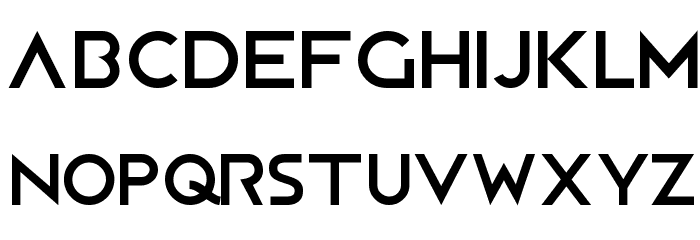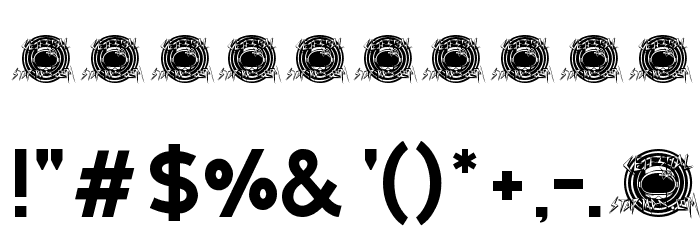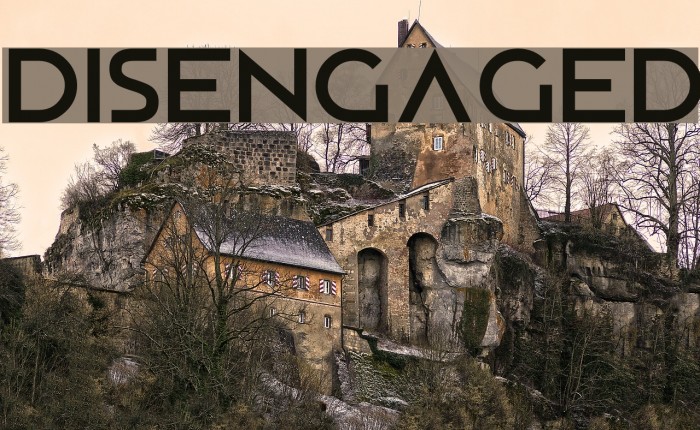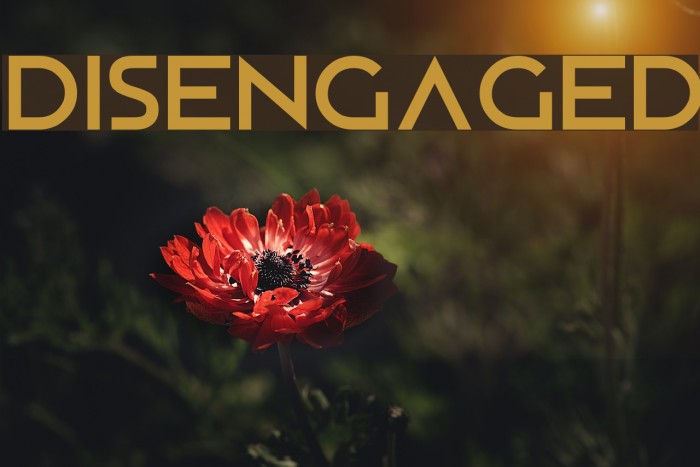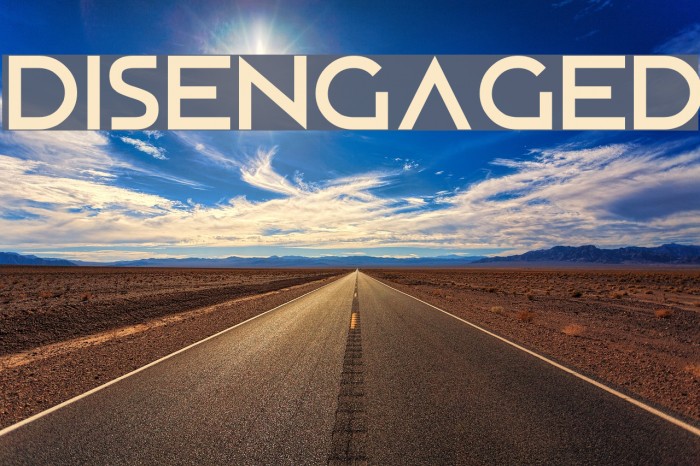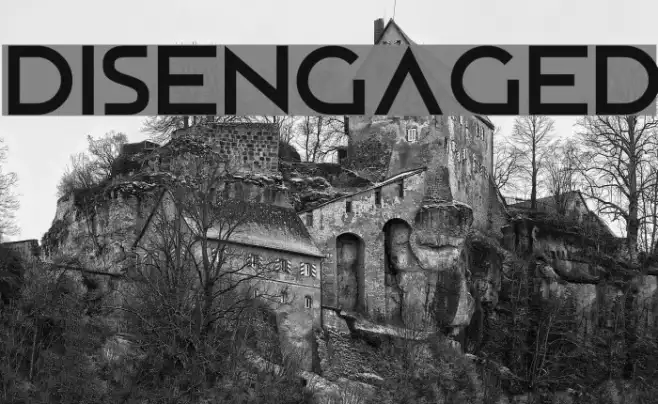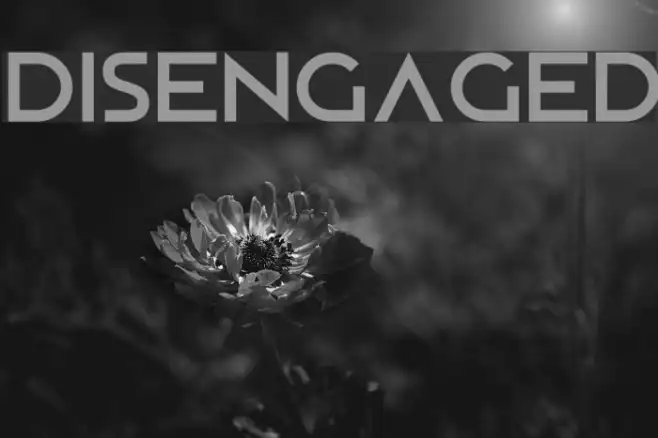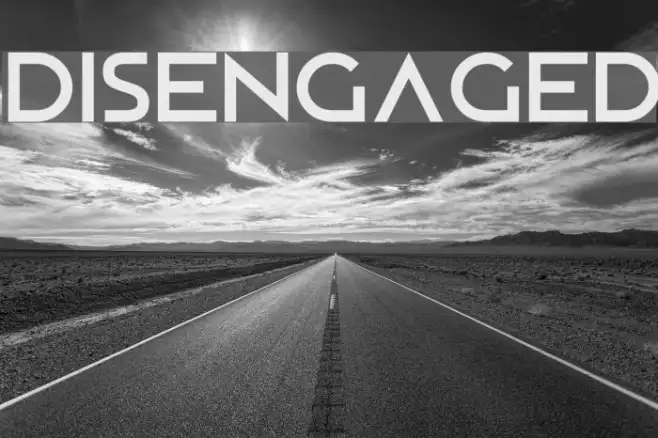
Disengaged Font
This font features a bold and geometric design with a modern aesthetic. The uppercase letters are characterized by sharp angles and clean lines, giving them a futuristic and industrial feel. The lowercase letters maintain this geometric style, ensuring consistency across the typeface. The numerals are straightforward and align well with the overall design. Special characters are included, adding versatility for various uses. The font's boldness and unique style make it suitable for attention-grabbing headlines and logos.
A bold, geometric font with a modern and industrial aesthetic.
- Proposed Projects: Ideal for branding, logos, posters, and any project requiring a modern, bold typeface.